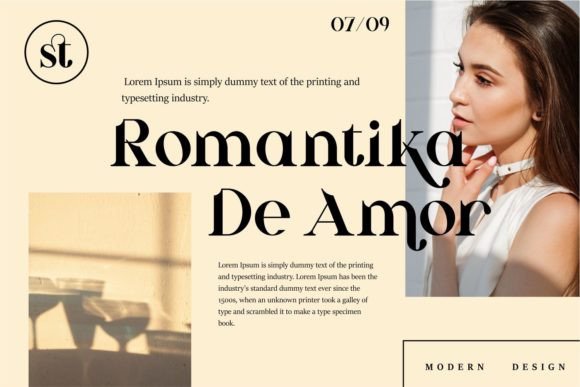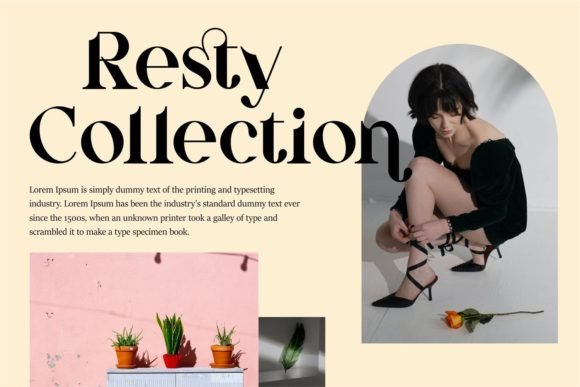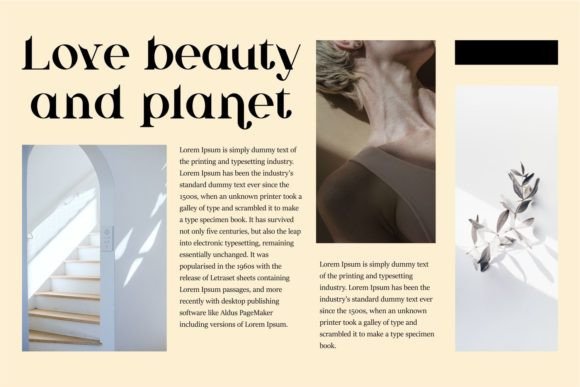
Introduction to Nisty Black Font
As designers, we’ve all been there – staring at a blank canvas, searching for the perfect font to bring our creative project to life. It’s that moment when the right typography can make all the difference, elevating our design from good to great. For those seeking a high-quality font that exudes sophistication and femininity, look no further than the Nisty Black Font. This modern serif font is a game-changer for designers, offering a unique blend of elegance and contemporary edge.
With its sleek lines and refined curves, the Nisty Black Font is a design resource that can add a touch of luxury to any project. Whether you’re working on a high-end branding campaign or an editorial design, this versatile font is sure to impress. And the best part? It’s available for free download, making it an accessible choice for designers of all levels.
From transparent backgrounds to intricate details, the Nisty Black Font offers endless possibilities for creative expression. As a valuable addition to any designer’s toolkit, this font is sure to become a go-to choice for those seeking a high-quality, modern serif font with a touch of sophistication.
Key Features of Nisty Black Font
- High-quality design: Nisty Black Font is crafted with precision to deliver a unique and professional look for your creative project.
- Transparent background: The font’s transparent background allows for easy integration with any image or design element, providing flexibility in your creative project.
- Size and resolution: The font is available in a range of sizes and resolutions, including 72 dpi and 300 dpi, making it suitable for various design applications.
- Unique characteristics: Nisty Black Font features a bold and modern design, with clean lines and a sleek aesthetic that sets it apart from other fonts in its category.
- Perfect for creative projects: With its high-quality design and versatility, Nisty Black Font is an excellent choice for designers, artists, and creatives working on a variety of projects.
Honest Review: Nisty Black Font
- ✨ High-quality typography: The Nisty Black Font boasts crisp, clean lines that make it perfect for headings and titles. Its high-quality design is evident in every detail.
- ✨ Versatility: This font is incredibly versatile and can be used in a wide range of creative projects, from graphic design to web design.
- ✨ Transparent background: The font’s transparent background makes it easy to overlay on images or videos, adding a touch of sophistication to any design.
While the Nisty Black Font excels in many areas, there are a few limitations to consider. ⚠️ The font may not be suitable for large blocks of text, as it can become difficult to read at smaller sizes. Additionally, the font’s bold weight can make it feel a bit overwhelming if not used judiciously.
Overall, I’m thoroughly impressed with the Nisty Black Font. Its high quality, versatility, and transparent background make it an excellent design resource for any creative project. With a little bit of restraint, this font can elevate your designs to new heights.
Tips for Getting the Most Out of Nisty Black Font
To get the most out of the Nisty Black Font, consider the following tips:
Can I use the Nisty Black Font with a transparent background?
Yes, the Nisty Black Font is designed to be used with a transparent background, making it perfect for designers who want to create visually striking graphics and designs. The font’s transparent background allows it to blend seamlessly with other design elements.